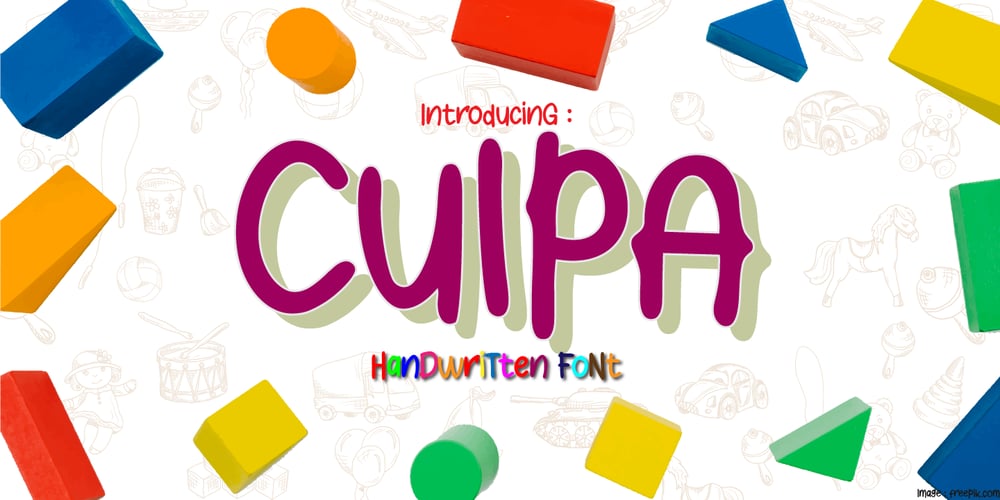
Culpa
Culpa font
Culpa Font Family was designed by Rahmad Mulyadi and published by BaronWNM. Culpa contains 1 styles and family package options. “Culpa” is a children’s themed handwritten font. This font looks cheerful and without being bound by standard rules, just like the nature of children who have not been constrained by standard rules. This font has almost the same lowercase and uppercase sizes, so it can be mixed up in words and sentences.”Culpa” is very suitable for use in designs with children’s themes, such as posters, clothes printing, children’s books, birthday greeting cards, etc.